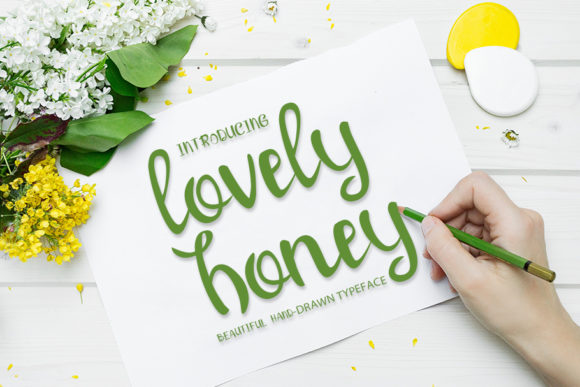
Welcome to the enticing world of Lovely Honey Font – a script typeface designed to captivate your creative spirit. This enchanting font dances with an irresistibly fresh and modern aura, making it the perfect companion for a wide array of projects. Its unique character shines effortlessly in greeting cards, unleashing heartfelt messages with an irresistible flair.
With Lovely Honey Font, your branding materials will blossom with individuality, making a lasting statement in the competitive marketplace. Craft mesmerizing quotes that resonate with your audience, leaving them captivated by your brand's narrative. This versatile font elevates posters to an art form, drawing attention with its playful charm. The possibilities are as endless as your imagination.
Discover a font that's as versatile as it is visually appealing. Lovely Honey Font seamlessly adapts to a myriad of creative endeavors. Whether you're a seasoned designer or just starting your journey into the world of visual storytelling, this font will elevate your projects to new heights.
Don't miss this extraordinary opportunity to add Lovely Honey Font to your font library. Its boundless potential awaits your creative touch, ready to transform your designs into masterpieces. Unleash your imagination and let the Lovely Honey Font weave its magic through your projects. Experience the joy of creating with a font that truly captures the essence of artistry and innovation.